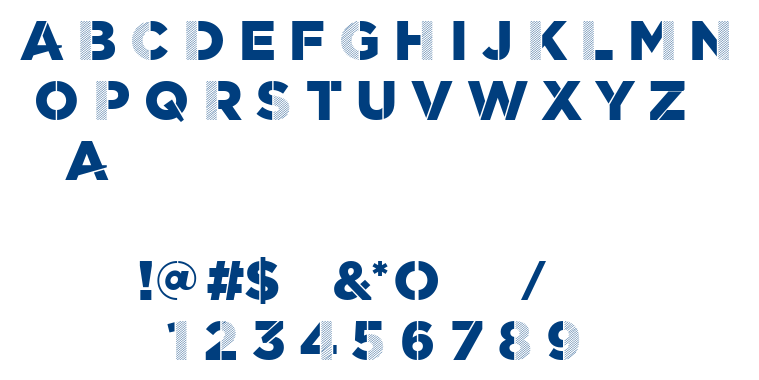
Tiny Small Medium Large Scratch font Threz Website Scratch-Basic.ttf Scratch-Detail.ttf Download 18450 downloads Freeware Category: Basic » Various Uppercase display typeface special for titles / headlines inspired by classic Gotham and Sans-Serif fonts. Limited gylphs and variations. Lenguanges: English and Spanish Files: .OTF | .TTF Character Map specimen sheet